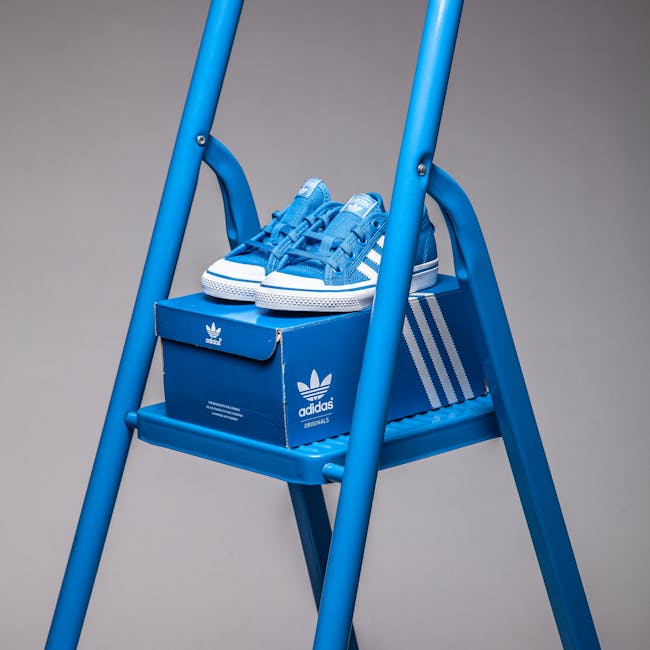
What is Adidas Typeface?
The Adidas Typeface stands as a beacon in the design world, symbolizing the brand’s identity and ethos. It’s more than just letters arranged to spell a name—it’s an integral part of how Adidas communicates its values and captures the attention of its audience. From its inception, the typeface has evolved, reflecting changes in design trends while maintaining its core identity. This article explores the journey of the Adidas Typeface, its unique design characteristics, and its impact on brand identity.
History of Adidas Typeface
Early Branding and Logo Design
Adidas, founded in 1949, initially focused on creating a distinctive logo that would stand the test of time. The original logo featured the iconic three stripes, which became synonymous with the Adidas brand. The typeface used during these early years was straightforward, emphasizing legibility and simplicity. It complemented the logo by providing a clean and modern look that resonated with consumers. To learn more about the history of Adidas logos, visit The Complete History Of The Adidas Logo.
Transition to Modern Typeface
As the brand grew, so did its need for a more versatile and dynamic typeface. The transition to a modern typeface was driven by the desire to align with contemporary design aesthetics and digital media’s demands. This change wasn’t just about aesthetics; it was about creating a cohesive brand identity that could adapt to various platforms and marketing needs. The evolution of the typeface reflects Adidas’ commitment to innovation and adaptability in a fast-changing world.
Design Characteristics of Adidas Typeface
Font Style and Variation
The Adidas Typeface is characterized by its bold, sans-serif design, which exudes strength and confidence. This style is deliberately chosen to reflect the brand’s athletic spirit and dedication to performance. The typeface includes various weights and styles, allowing flexibility and creativity in its usage. Whether used on sneakers, apparel, or advertising materials, the font maintains its clarity and impact.
Color and Usage in Marketing
Color plays a vital role in the effectiveness of the Adidas Typeface. By using a consistent color palette, Adidas ensures that its typeface remains recognizable across all mediums. In marketing, the typeface is often accompanied by the brand’s signature colors, enhancing its visual appeal and memorability. This strategic use of color and typography is central to Adidas’ marketing success, aligning with the brand’s overall aesthetic and messaging.
Impact on Brand Identity
Recognition Among Consumers
The Adidas Typeface is not just a font; it’s a symbol of the brand’s legacy and values. Consumers worldwide recognize it, associating it with quality, innovation, and athletic excellence. This recognition is crucial for brand loyalty, as typography significantly impacts how consumers perceive a brand. For more insights into how typography influences brand perception, consider reading The Role of Typography in Branding.
Comparative Analysis with Competitors
When comparing the Adidas Typeface to those of its competitors, such as Nike or Puma, it’s clear that each brand uses typography to convey different aspects of their identity. While Nike might opt for a more futuristic and sleek design, Adidas’ typeface speaks to authenticity and tradition. This differentiation is crucial in a crowded market where visual identity can make or break consumer affinity.
The Adidas Typeface is more than an element of design; it’s a strategic tool that reinforces the brand’s identity and connects with consumers. Its evolution mirrors the brand’s journey, adapting to changes while maintaining the essence of Adidas. As a key component in the brand’s visual identity, the typeface continues to influence perceptions and drive brand recognition across the globe. Whether on a pair of sneakers or a global ad campaign, the Adidas Typeface is a testament to the power of typography in shaping a brand’s legacy.